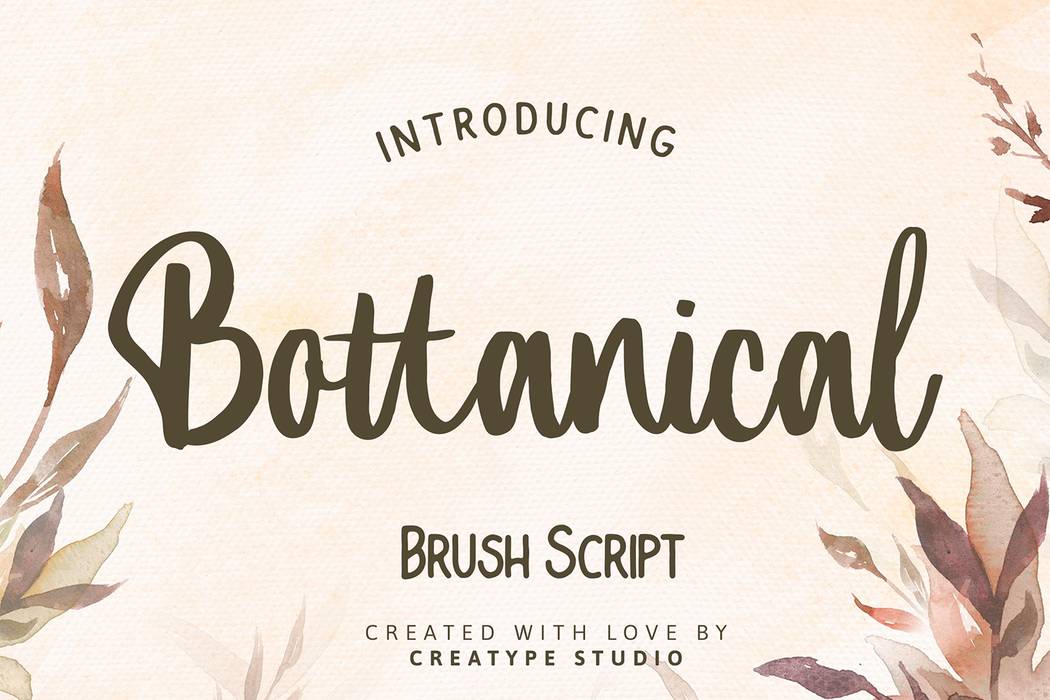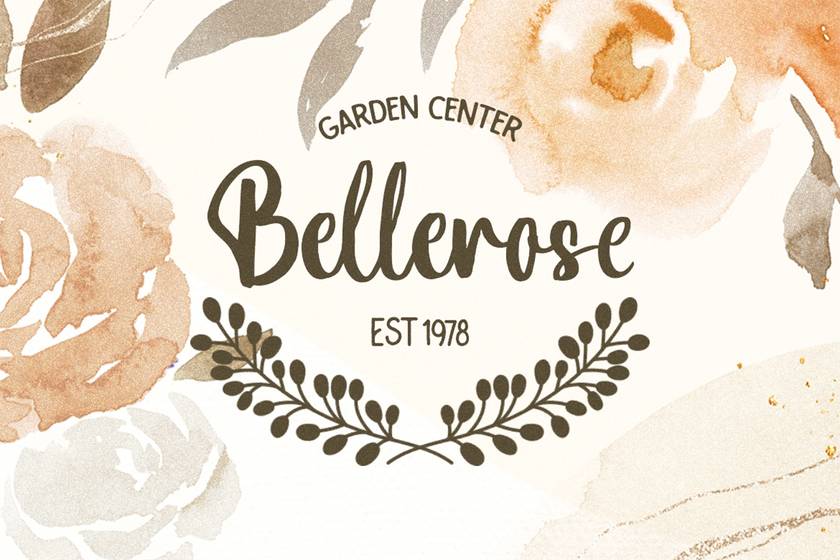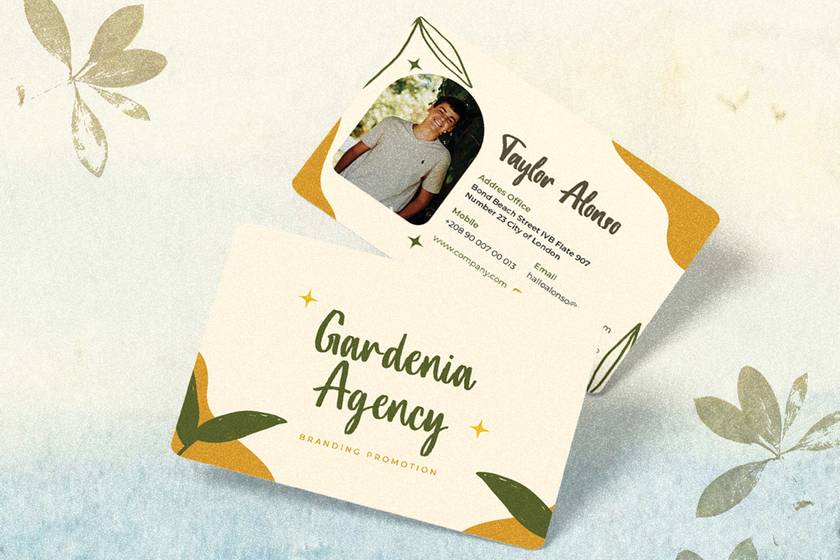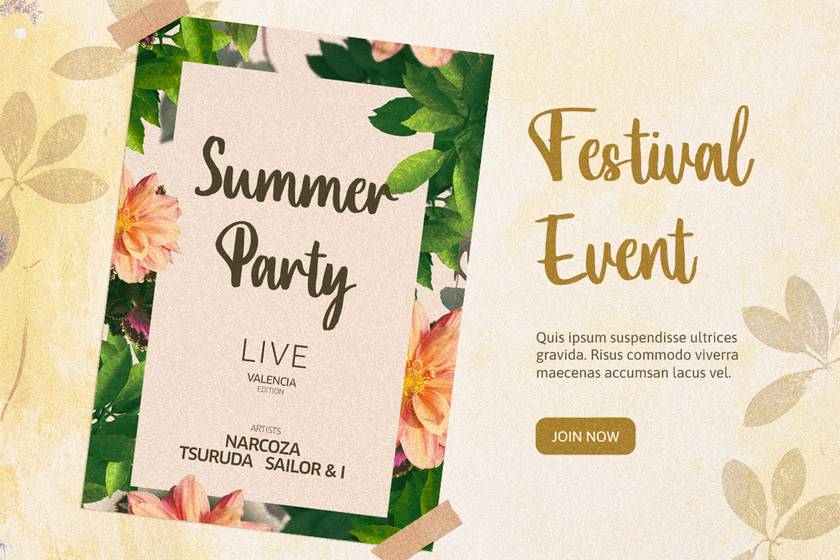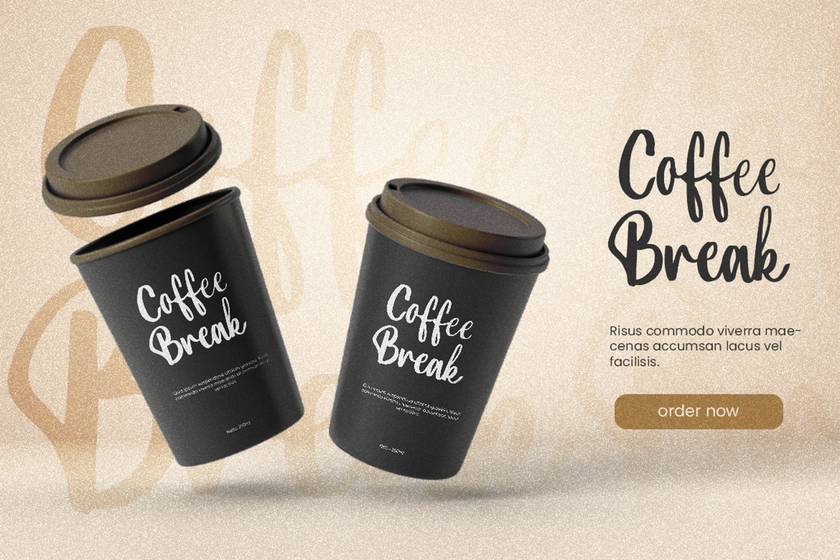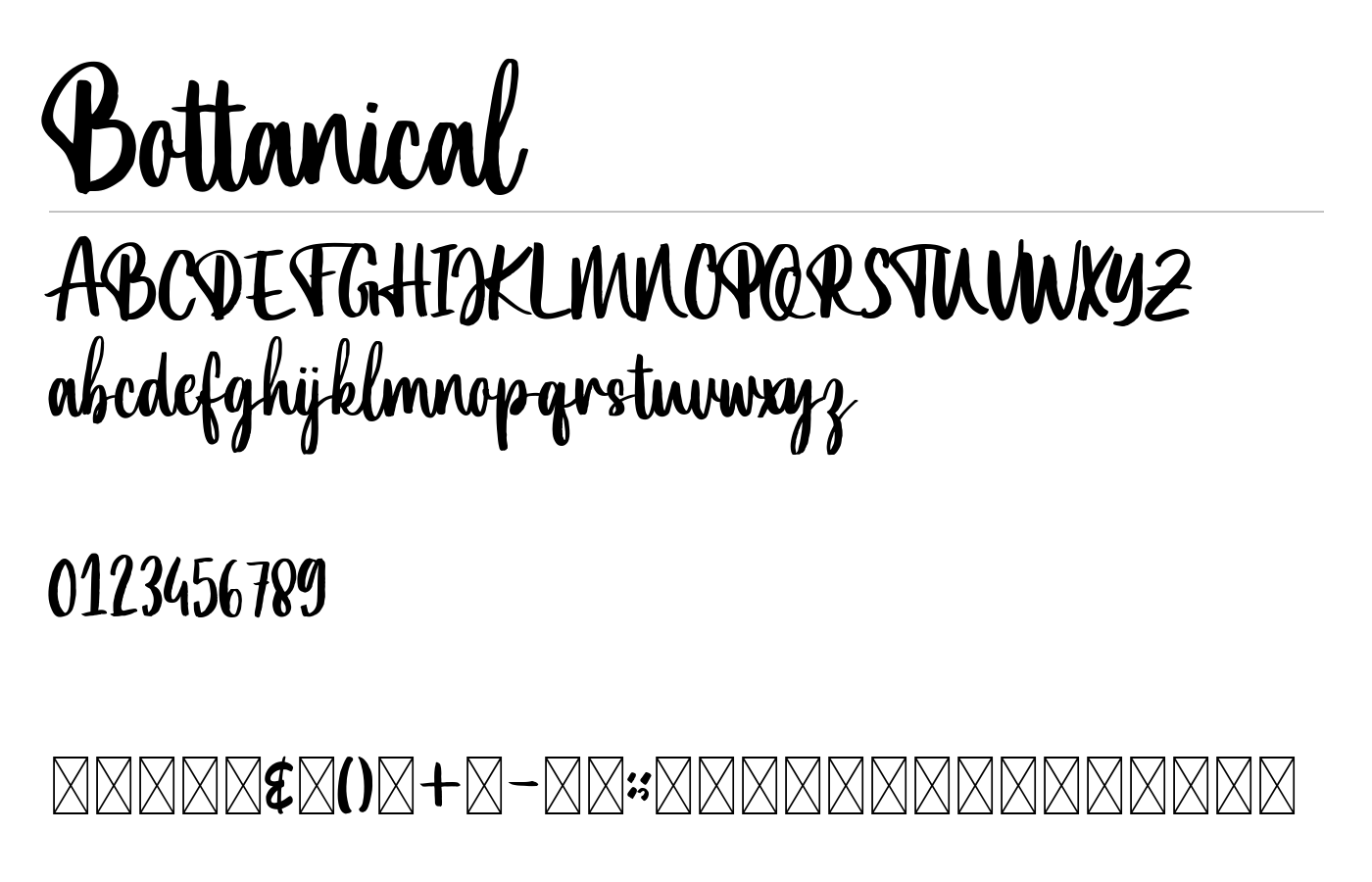
Bottanical Font is a lively handwritten script with a warm, organic feel, characterized by its medium weight and moderately tall x-height that enhances readability. This font features fluid, brush-like strokes with a casual, friendly personality, making it ideal for creative branding, invitations, and lifestyle packaging that seeks a personal, approachable touch. Its unique charm works beautifully in headlines and decorative text where an inviting, natural style is desired.
Bottanical Font
About Bottanical Font